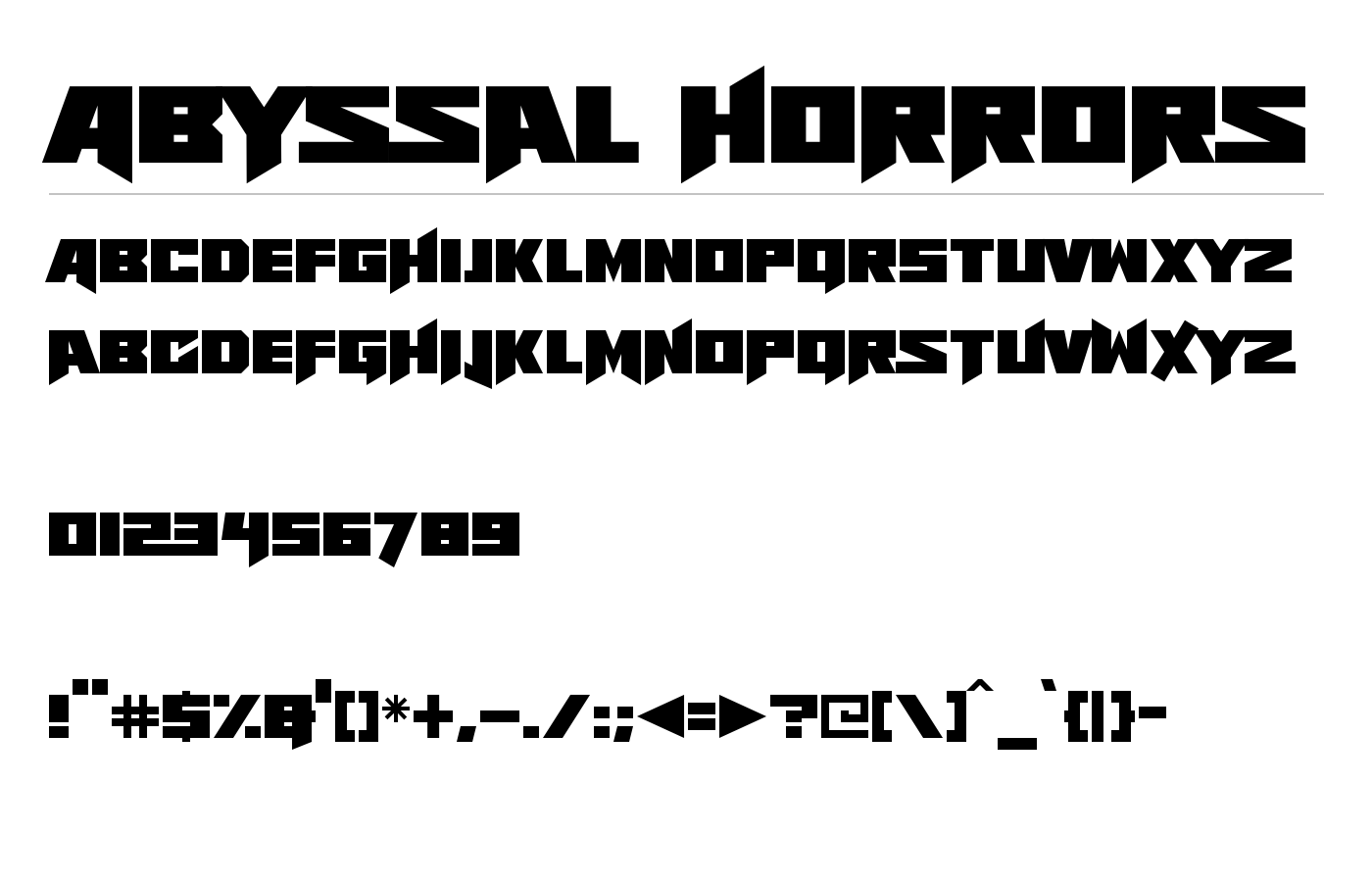
Abyssal Horrors is a bold, angular display font with sharp, geometric shapes and a heavy weight that creates a dramatic, intense effect. Its unique, jagged letterforms convey a dark, edgy mood perfect for horror-themed designs, gaming logos, or any project that needs a striking, powerful presence. This font works best in headlines or titles where its strong personality can stand out and capture attention.
Abyssal Horrors Font